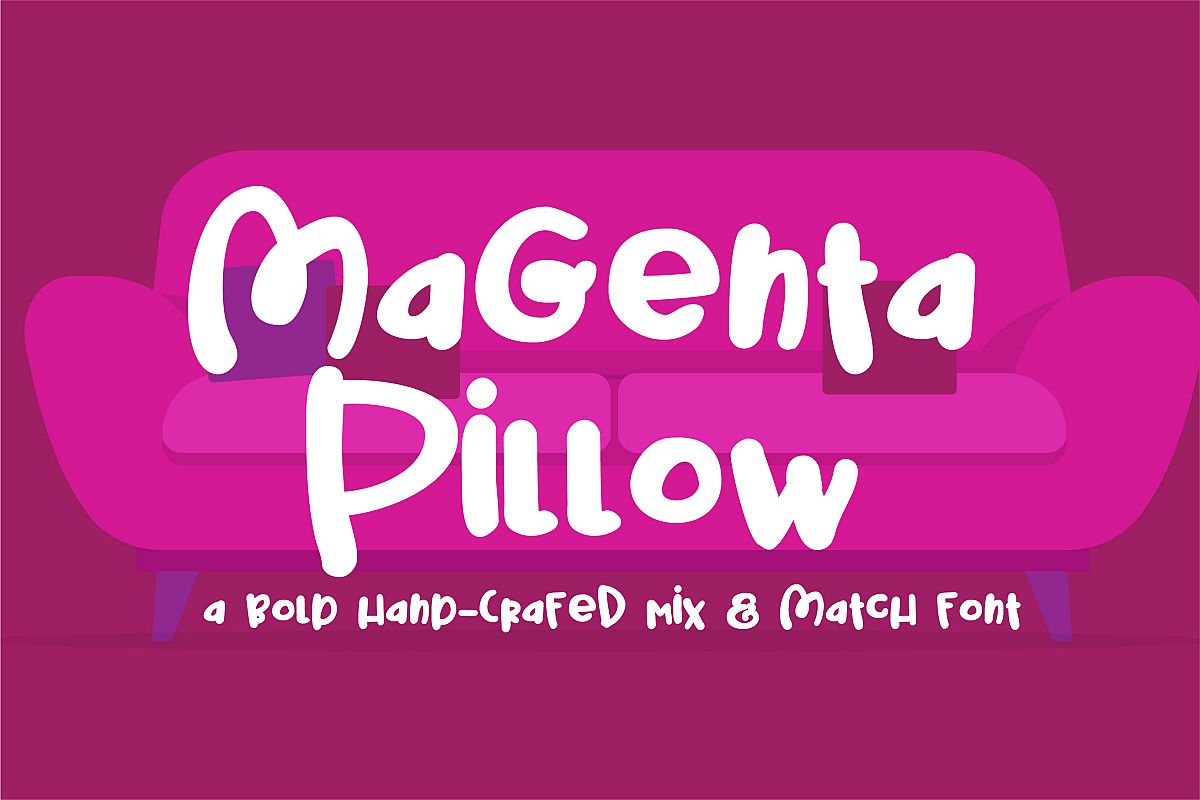
PN Magenta Pillow
This hand-written font has two cases you can mix up as you type for creative looks. Check out the much thinner version of this font: PN Magenta.